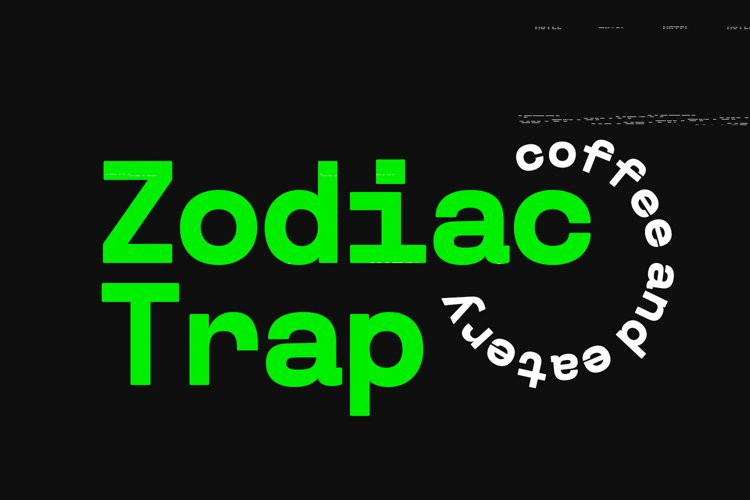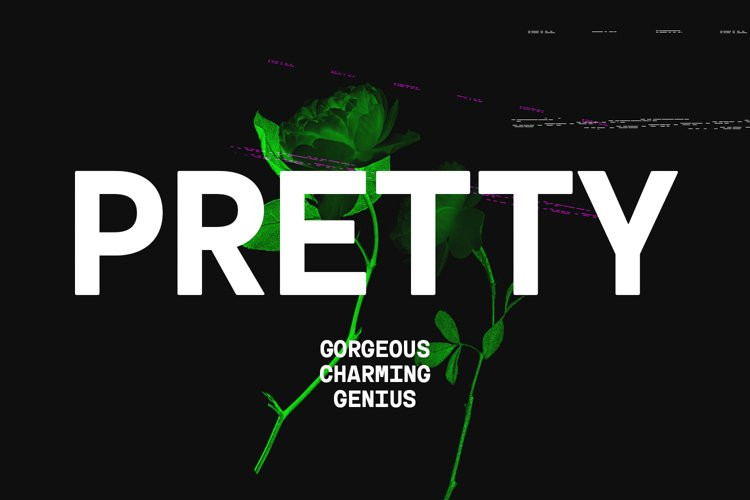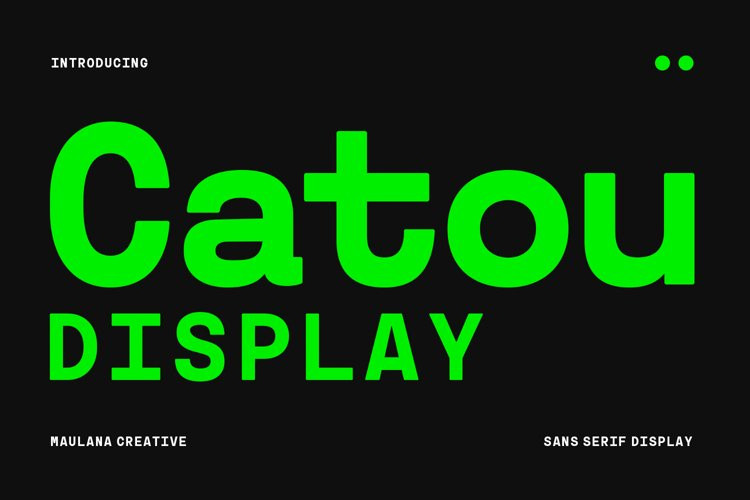
Catou Font
Catou FontCatou is a modern decorative sans display font. With single weight bold stroke, fun character. To give you an extra creative work. Catou font support multilingual more than 100+ language. This font is good for logo design, Social media, Movie Titles, Books Titles, a short text even a long text letter and good for your secondary text font with script or serif. Make a stunning work with Catou font.